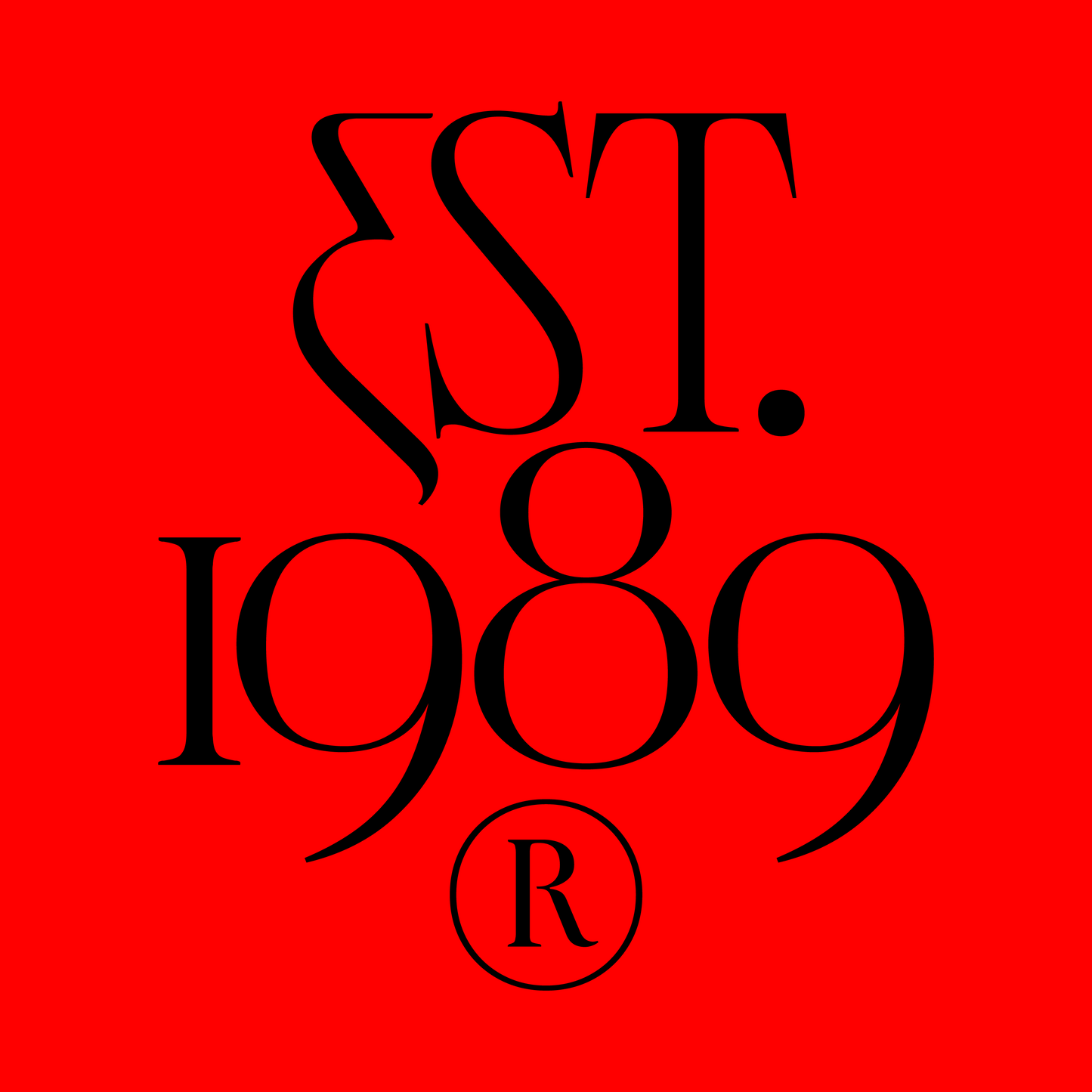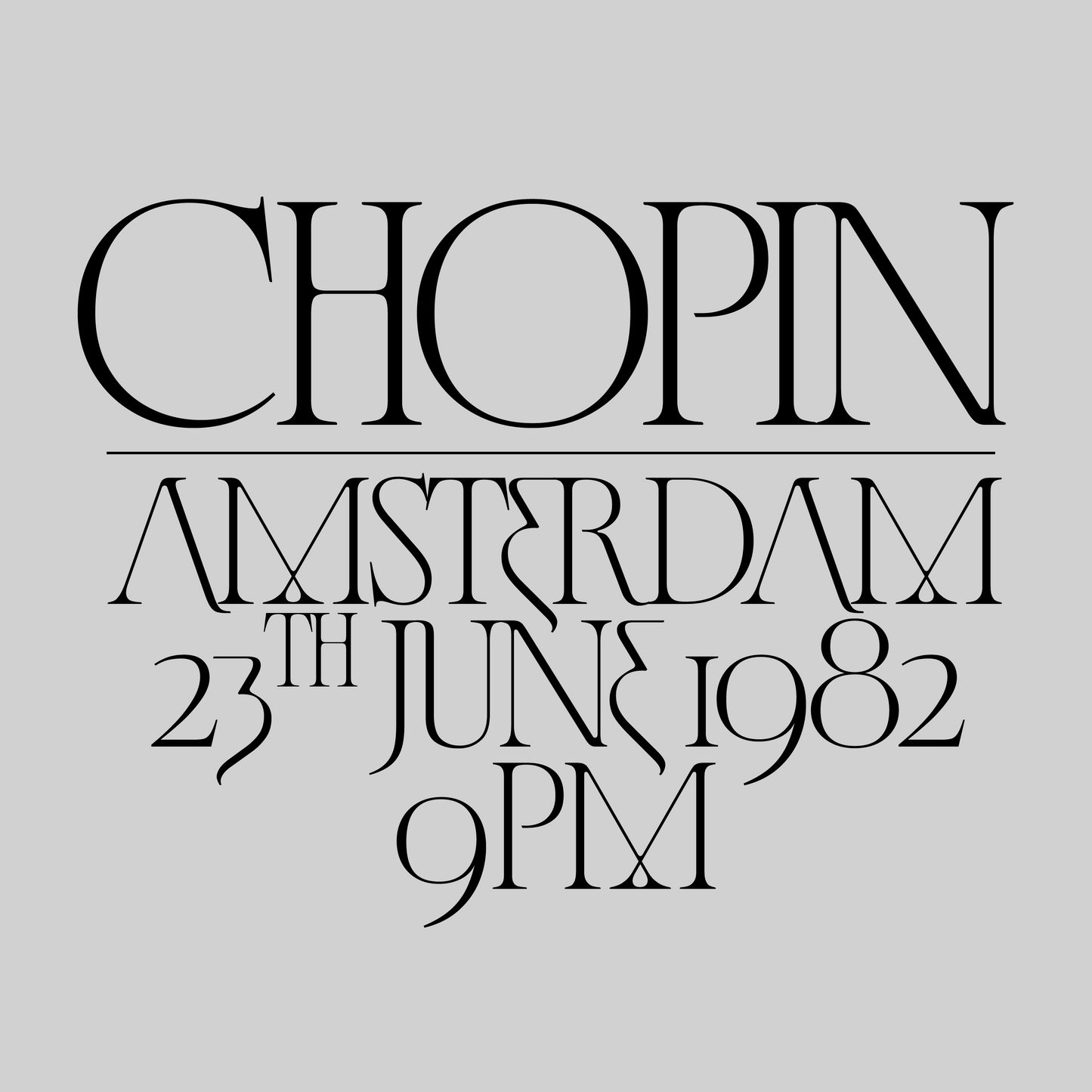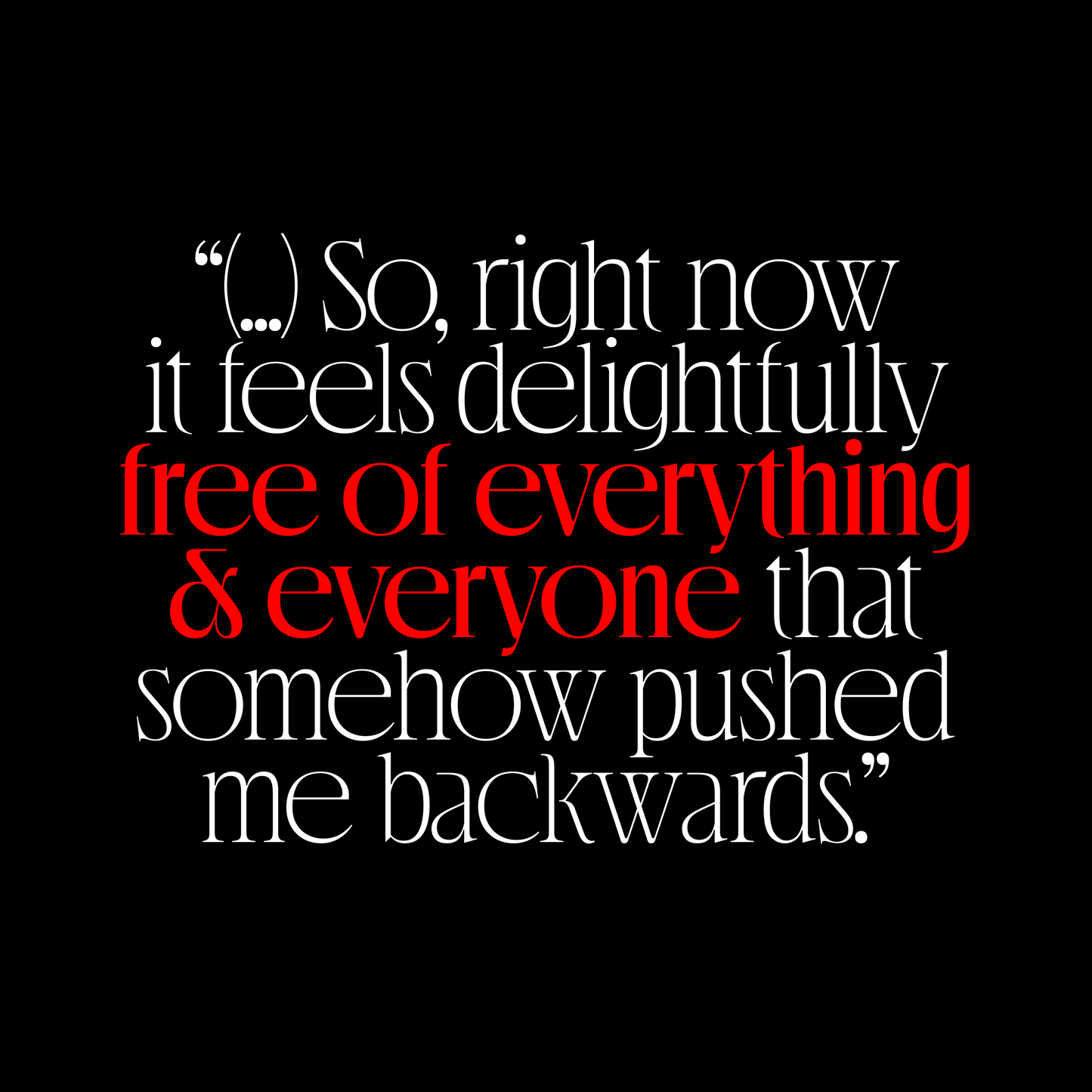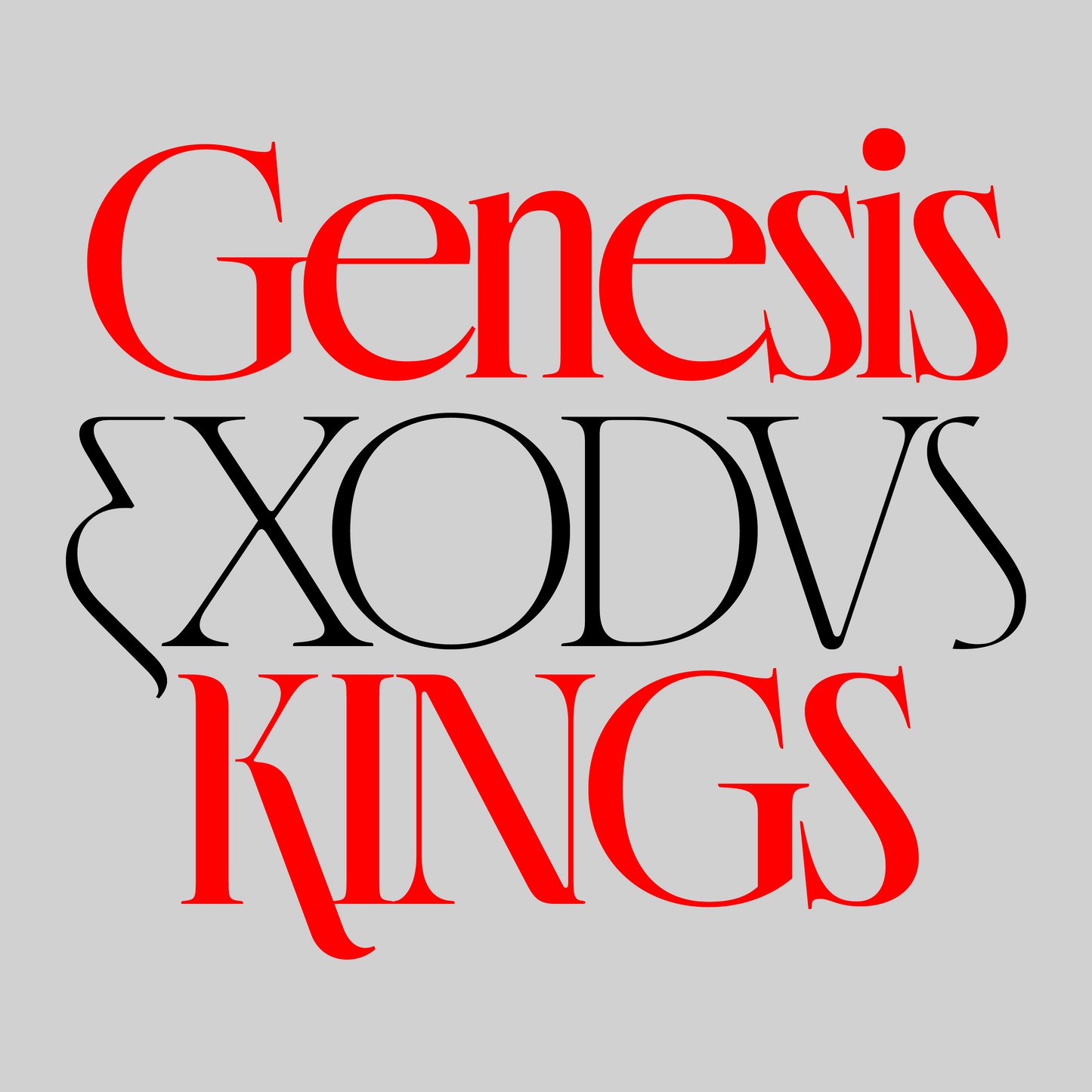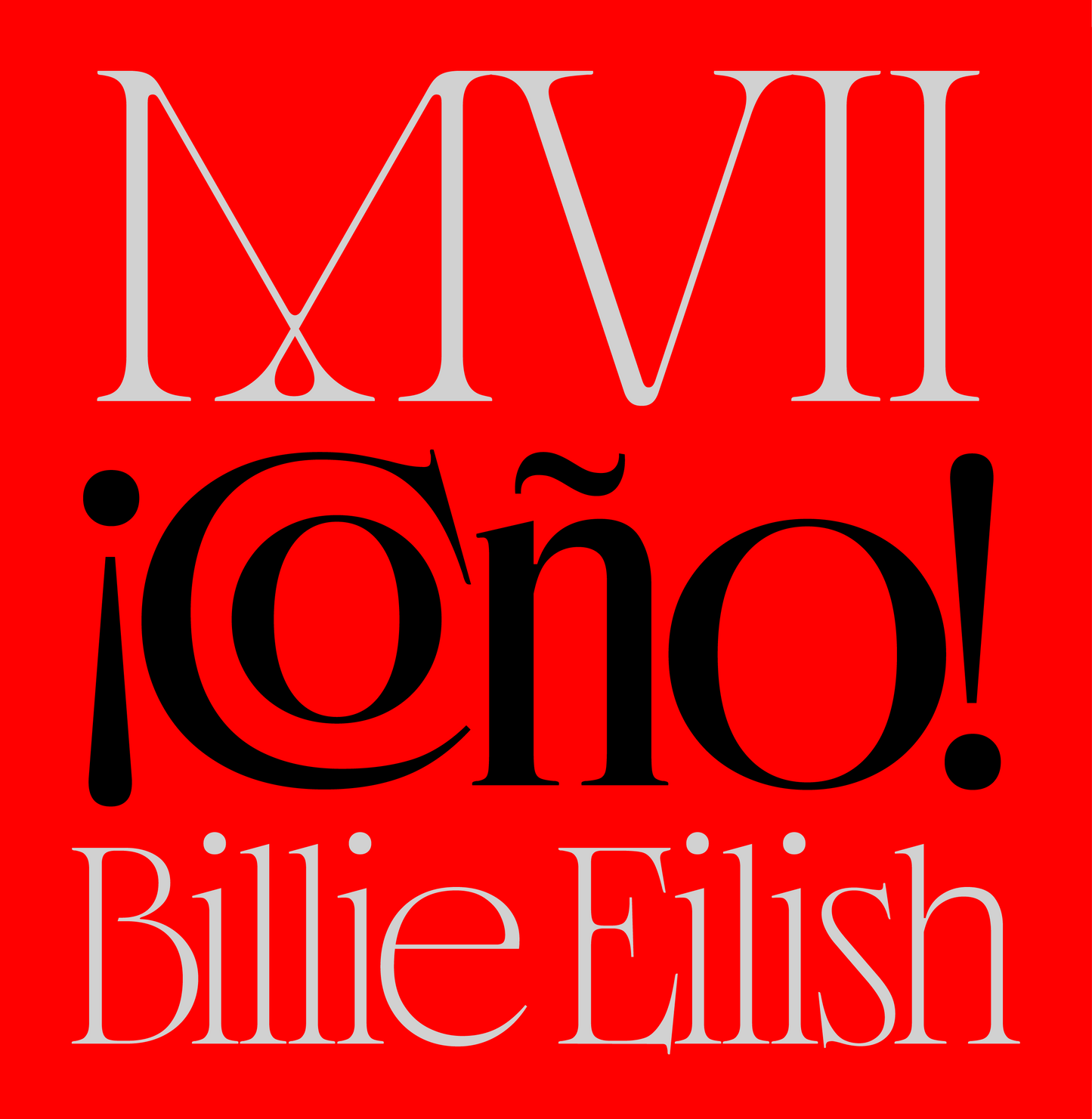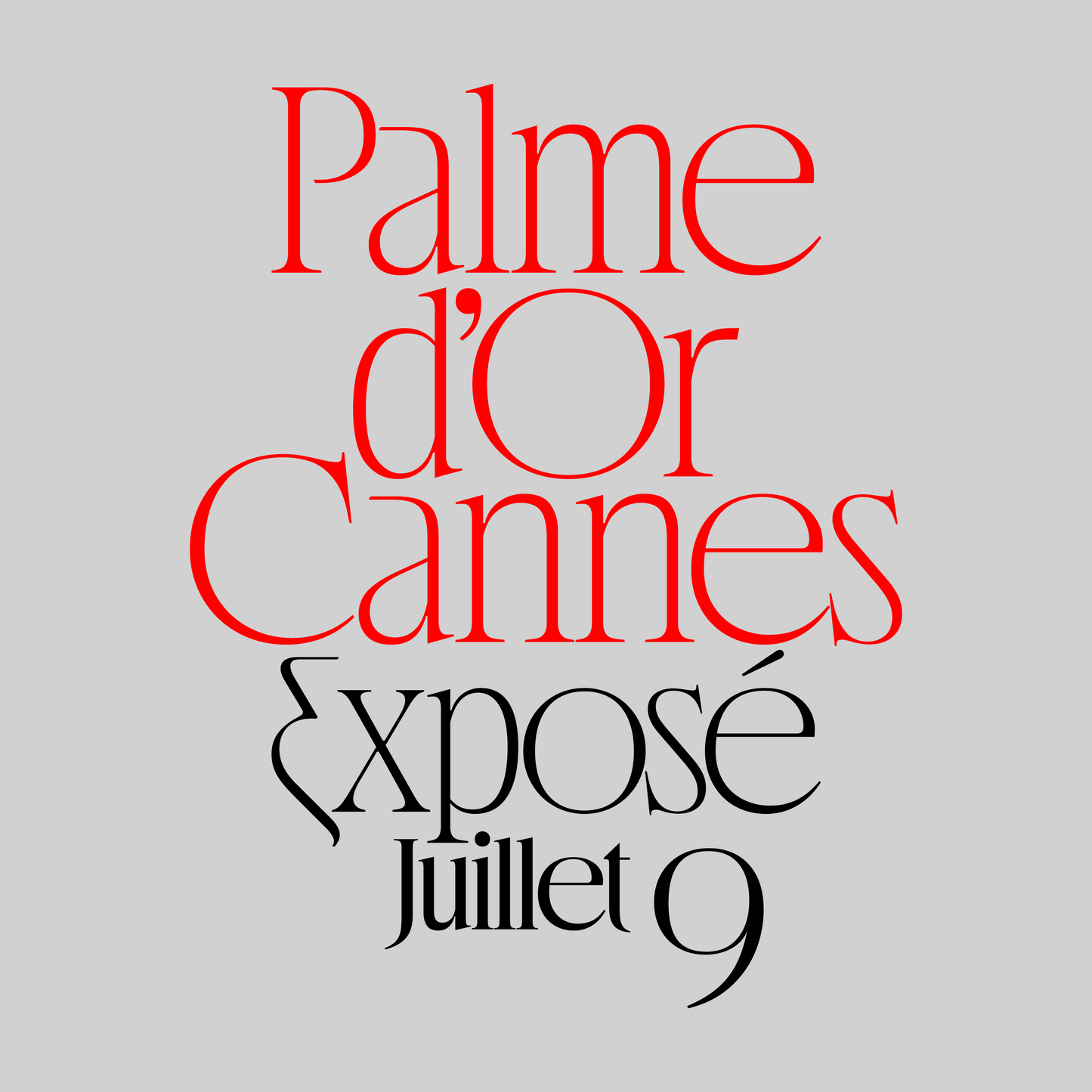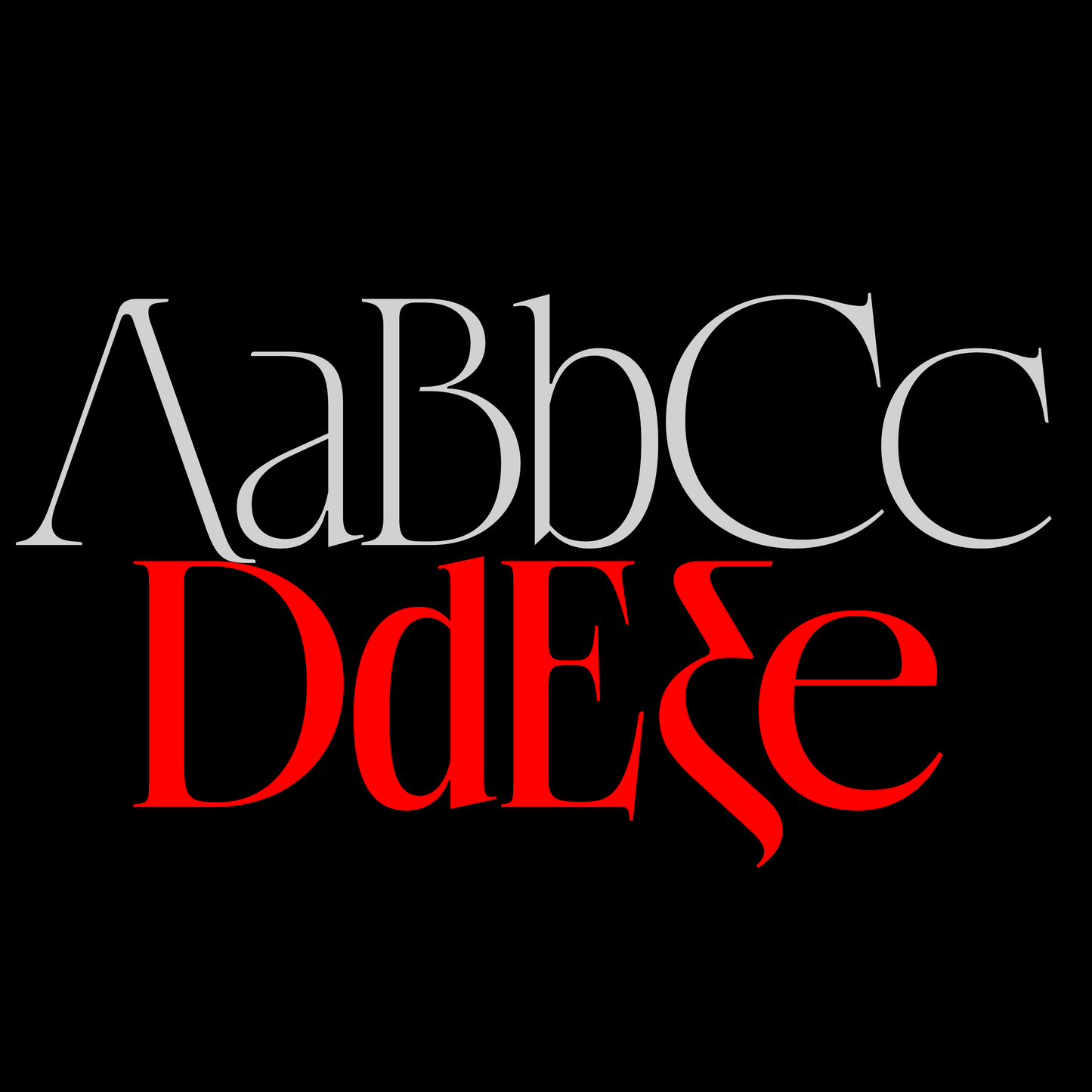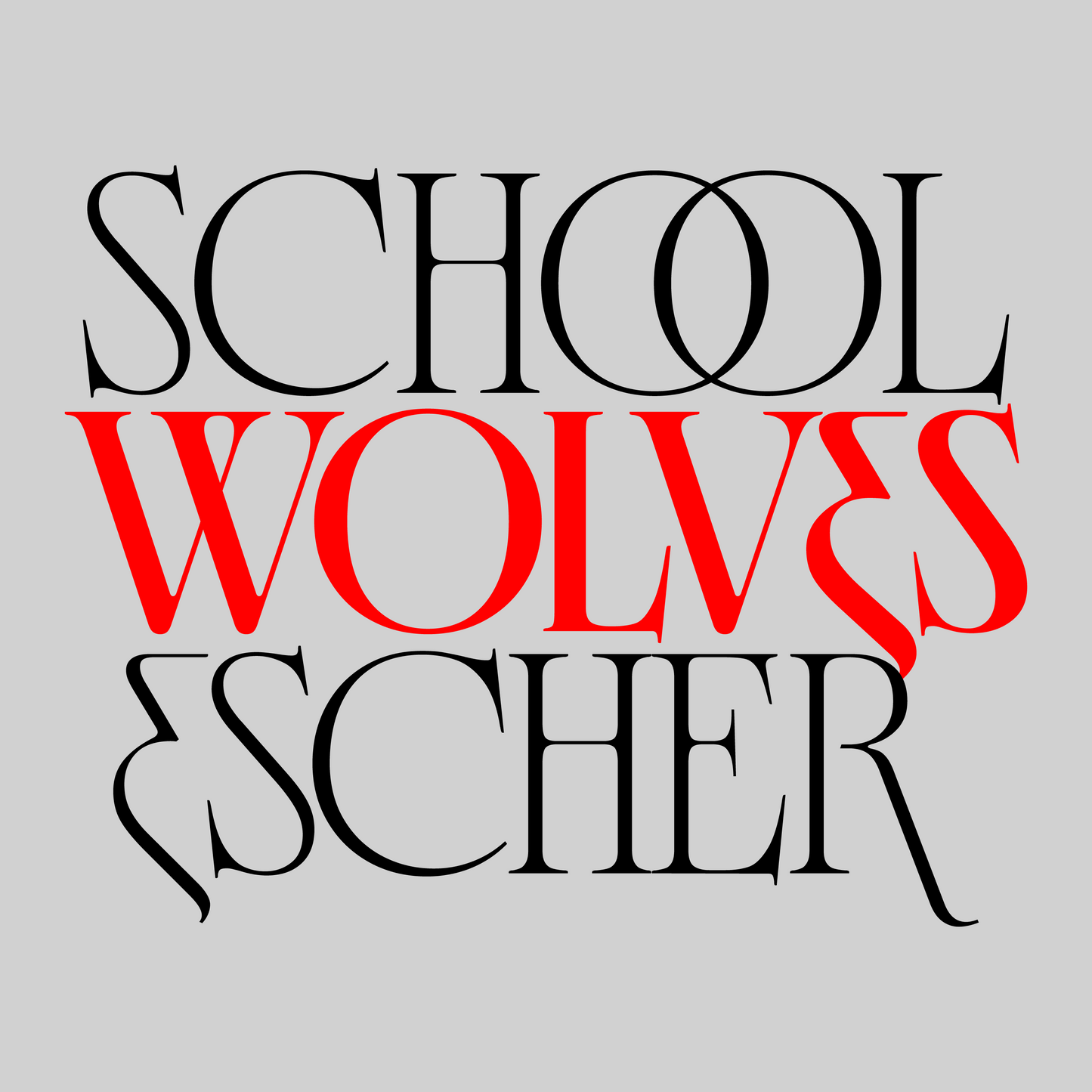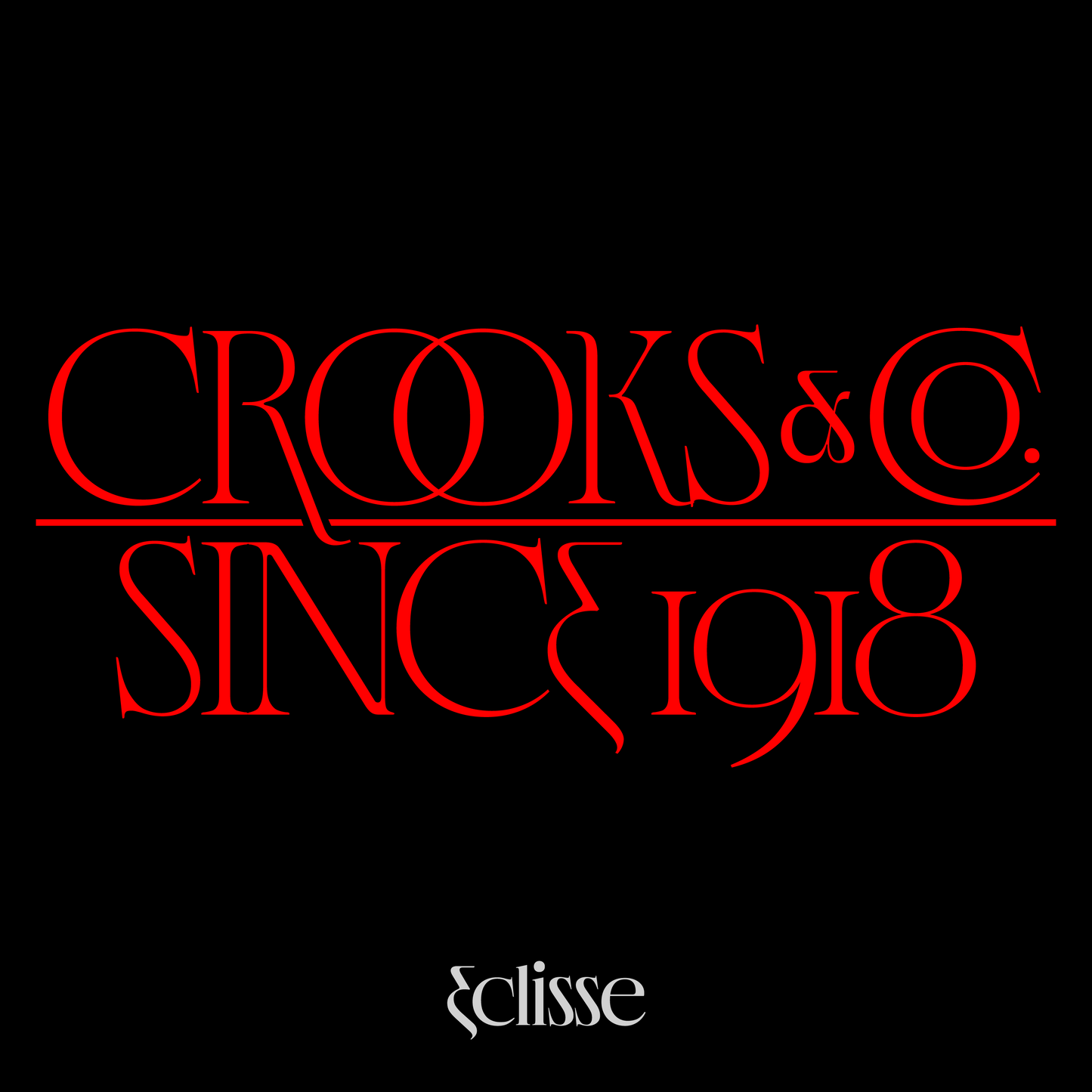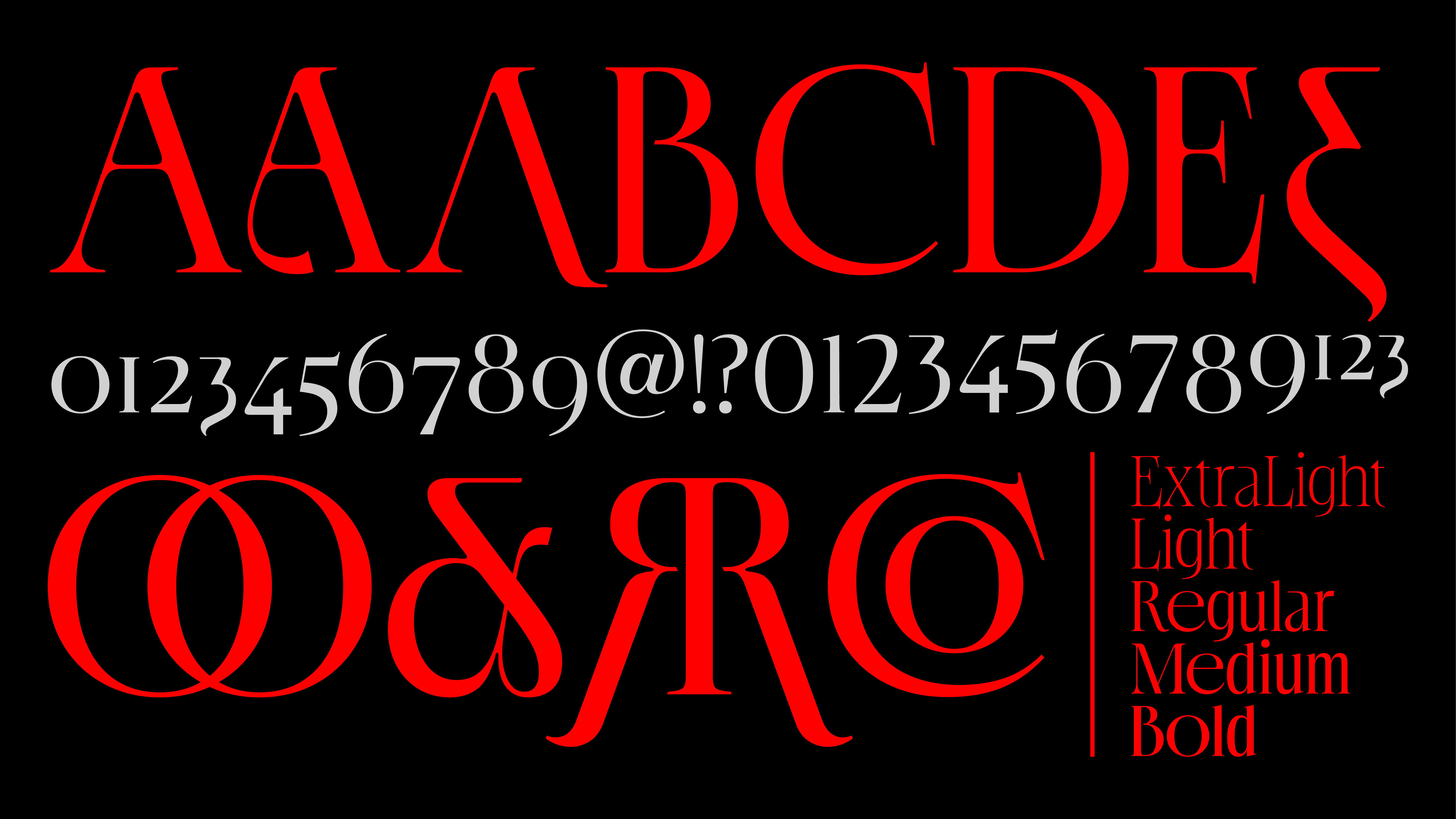
Eclisse
Carlos Mignot & Nelson Balaban
Eclisse is a striking display serif designed by Brazilian designers Nelson Balaban and Carlos Mignot. This typeface combines classical proportions with modern flair, featuring five weights from ExtraLight to Bold.
Inspired by the Didone style, Eclisse stands out with its wide circular letters and razor-thin serifs, offering a bold yet elegant look. Its rich set of alternative characters makes it perfect for creating unique logos and standout designs.
— Total glyphs set: 501
— Uppercase, lowercase, complete punctuation, old style and proportional figures
— Alternative set of characters
— Math signs
— Currency
— Ligatures
— Fractions
— Advanced Kerning